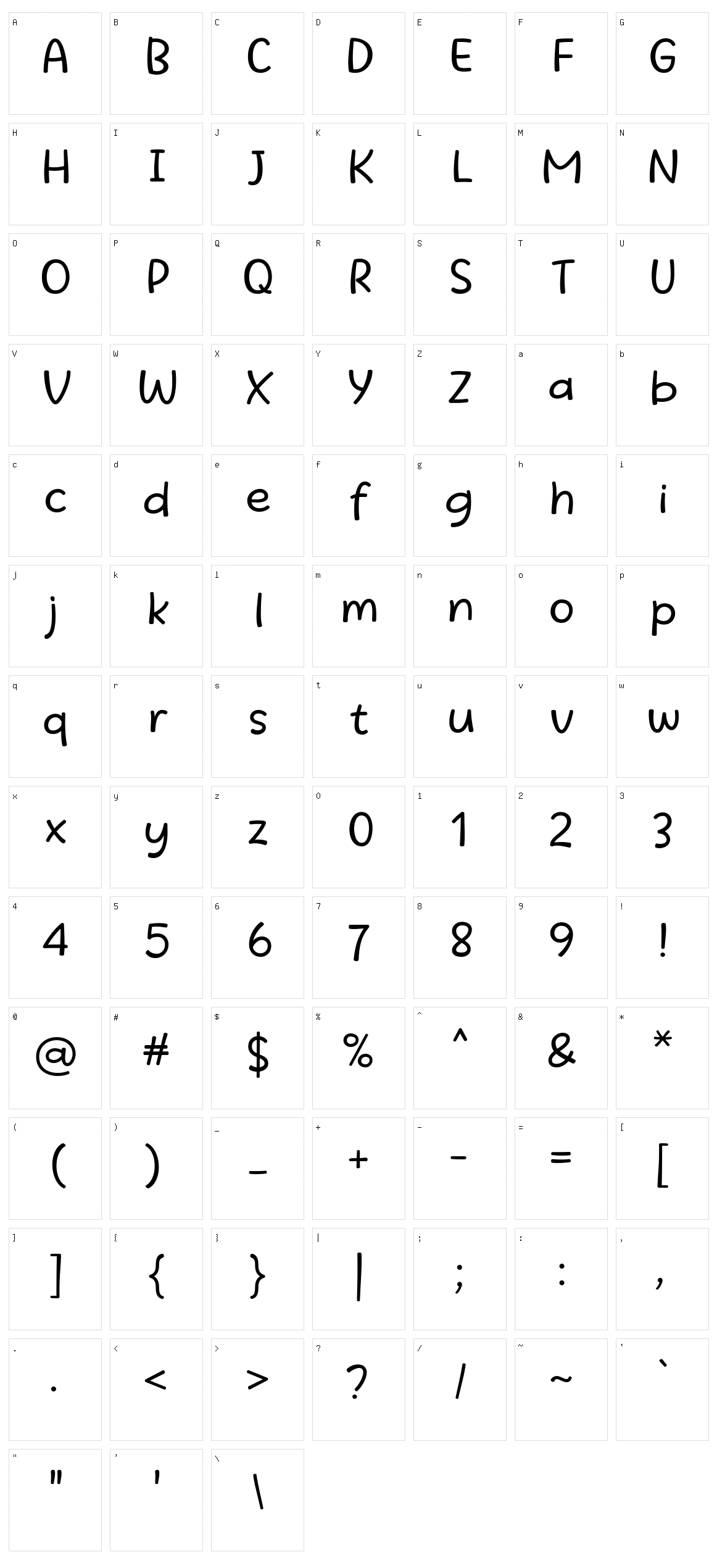
The free font Beatific Margella is carefully designed by 7NTypes, showcasing a thoughtful balance of creativity and usability and falls under the Script font style. When you download the ZIP file, it contains only 290.22 KB of font files, making it lightweight and quick to download. Please review the license details below to understand permitted usage and distribution rights. If license information is not available, we recommend using this font for personal projects only or contacting the author directly for commercial usage permissions.